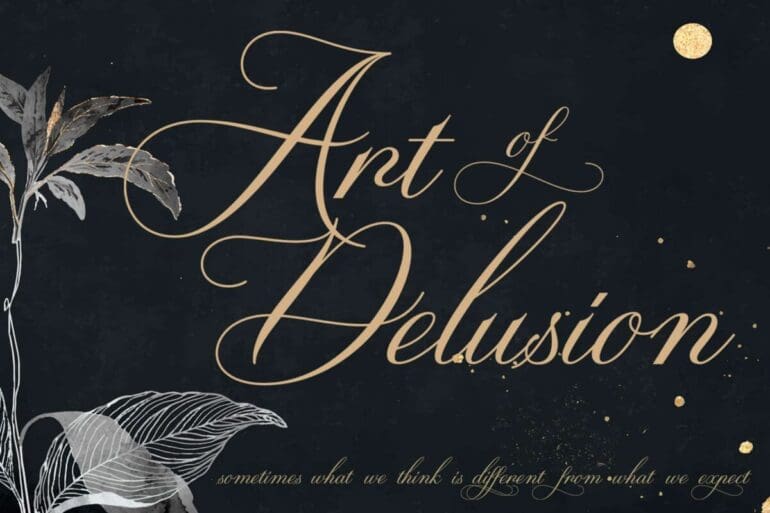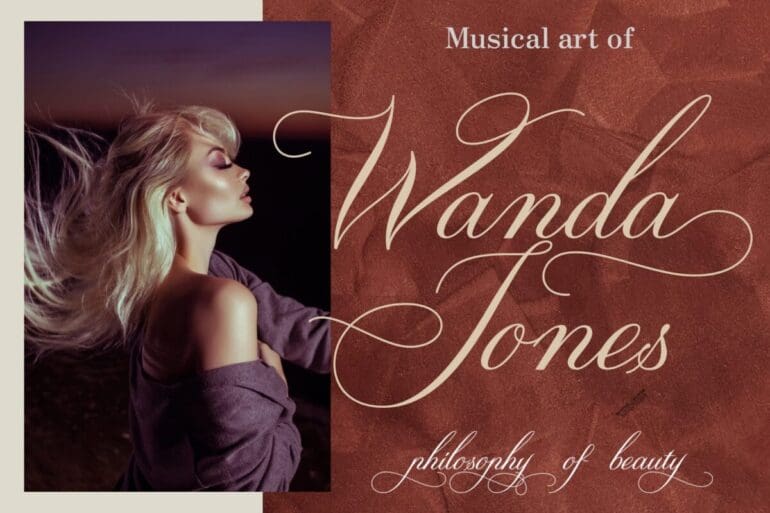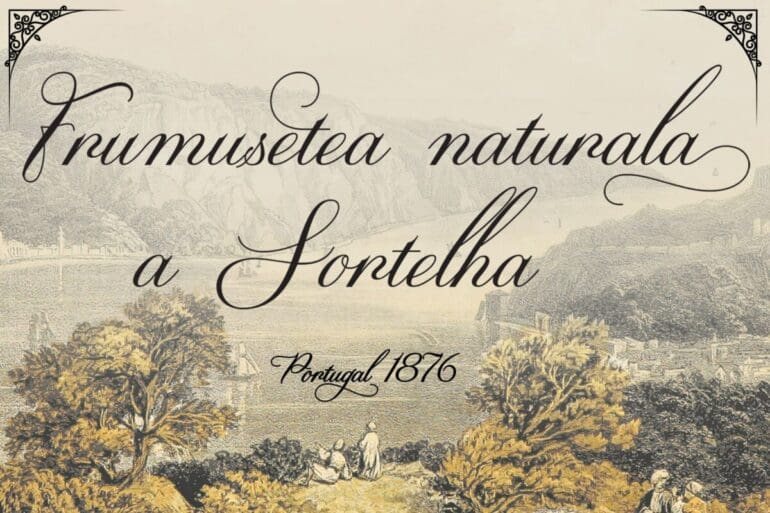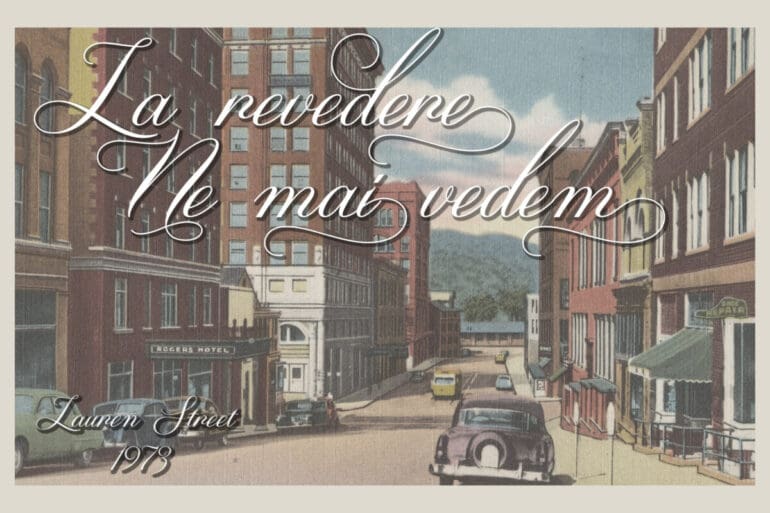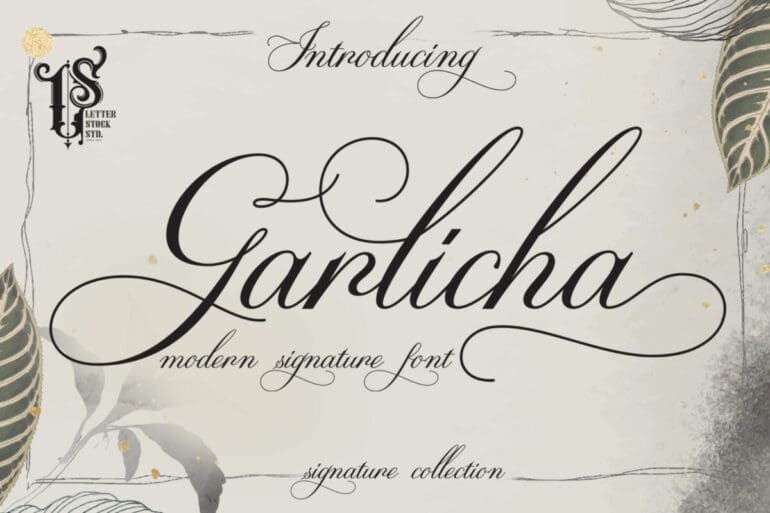
Garlicha Font
Garlicha Font. This pair was inspired by an elegant lettering poster design that I saw on some coffee shop, It was crafted by hand especially to add a natural handmade feeling in its brand identity than I make it clean with pentool. This beautiful font is made of original handwriting, perfect for you to use on your design and make it an authentic look.